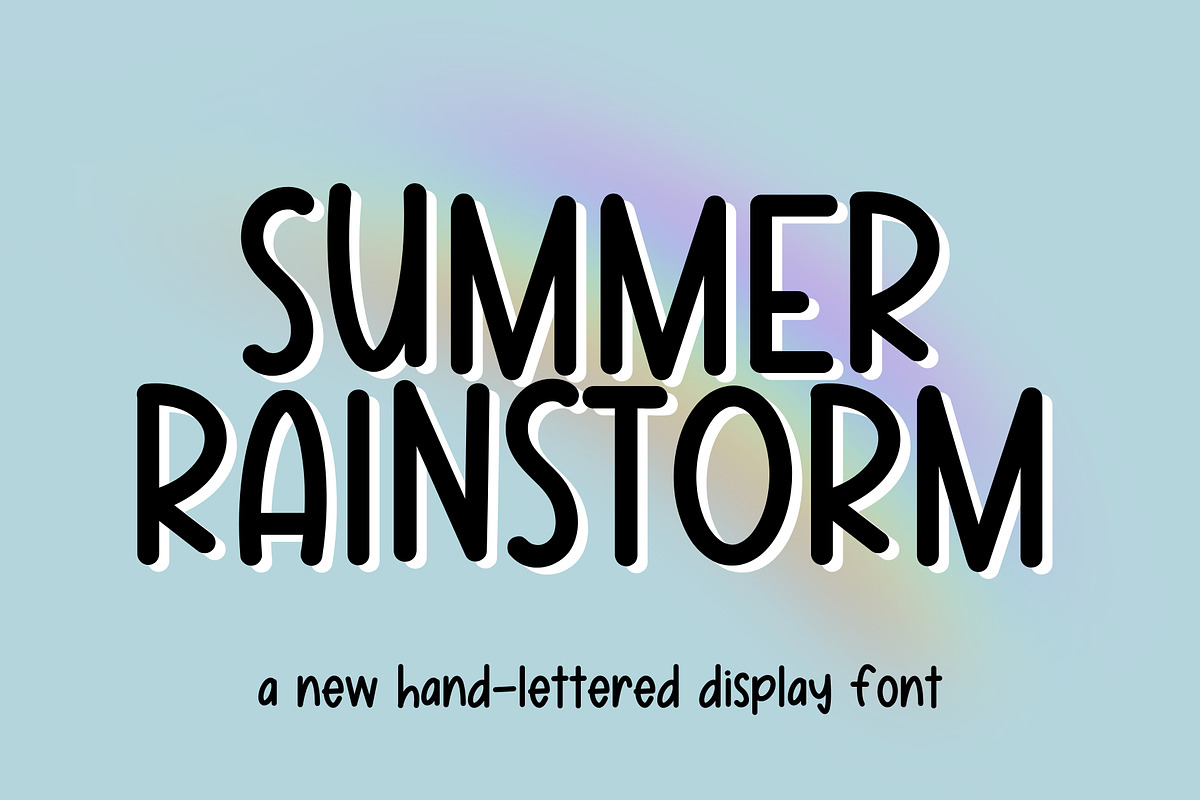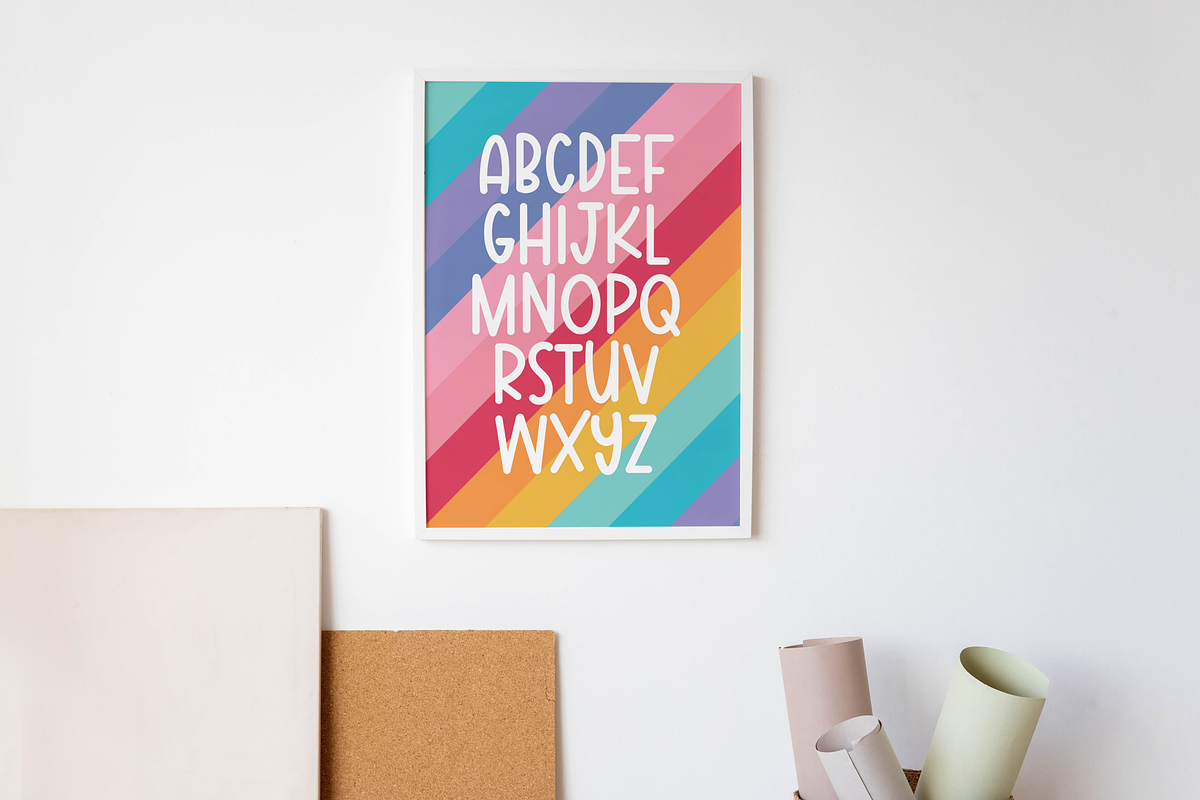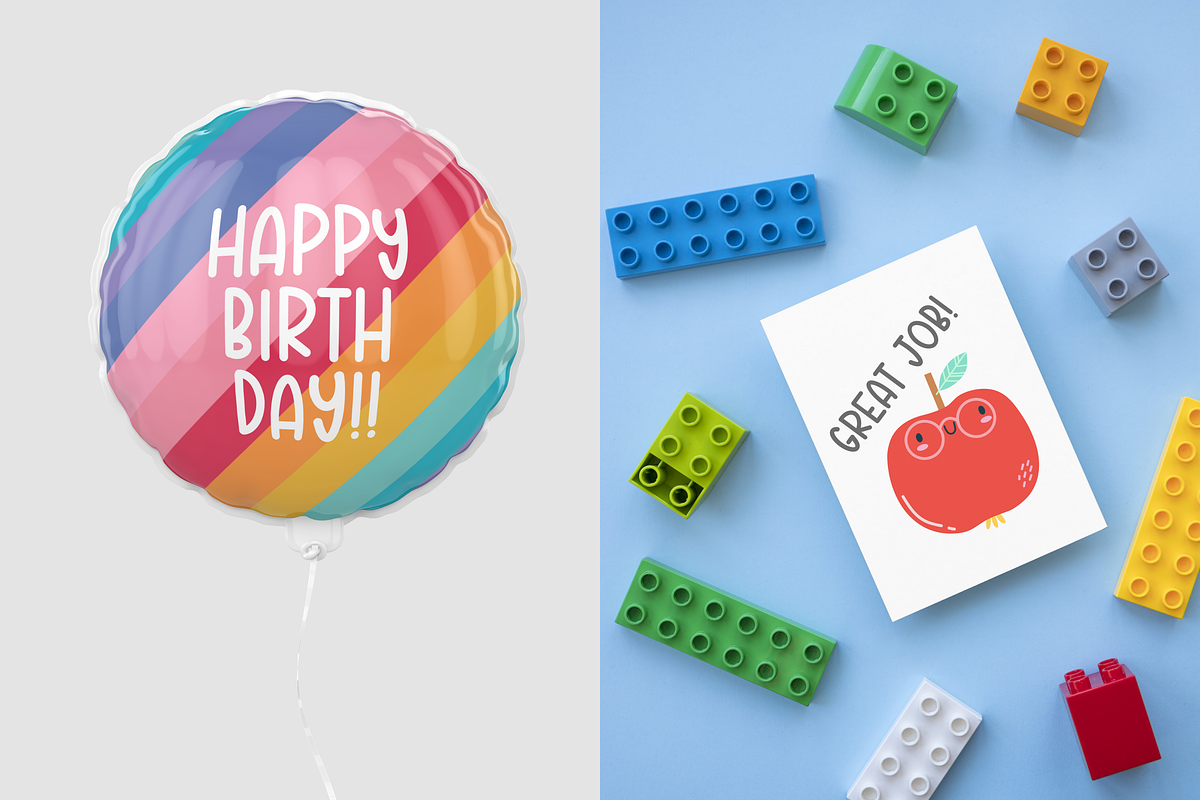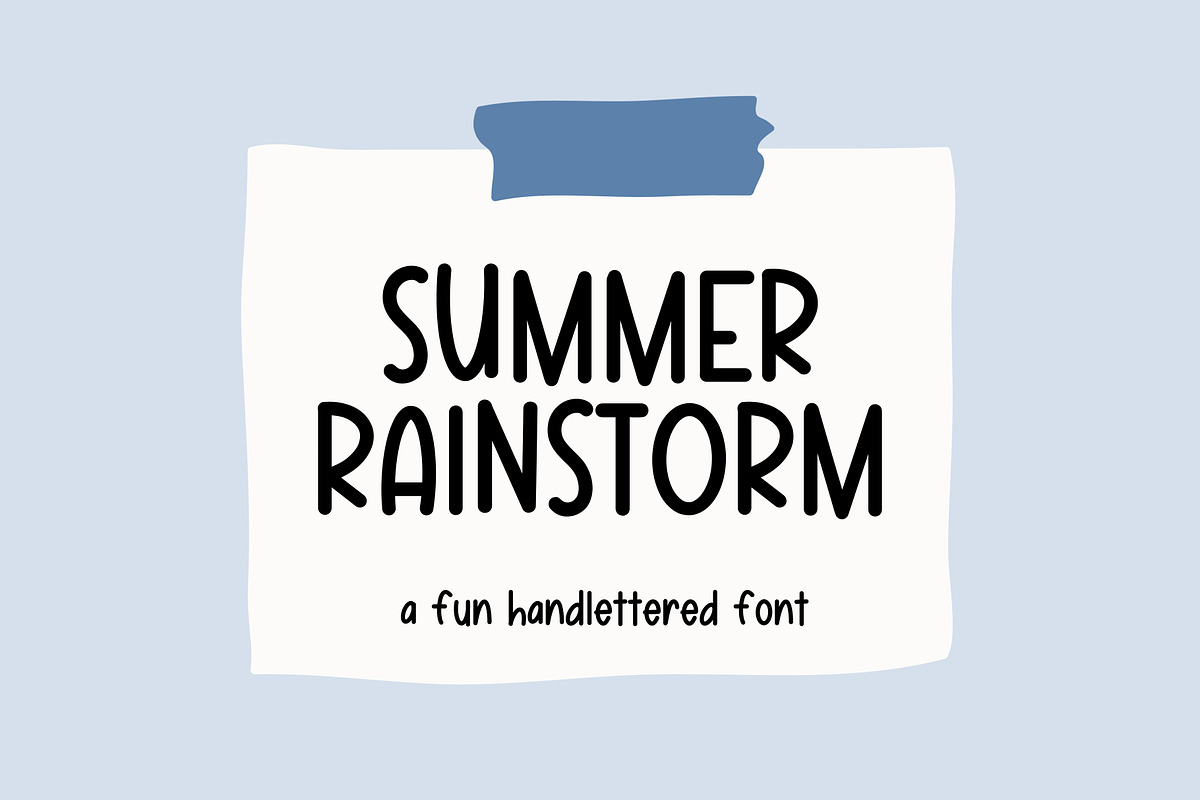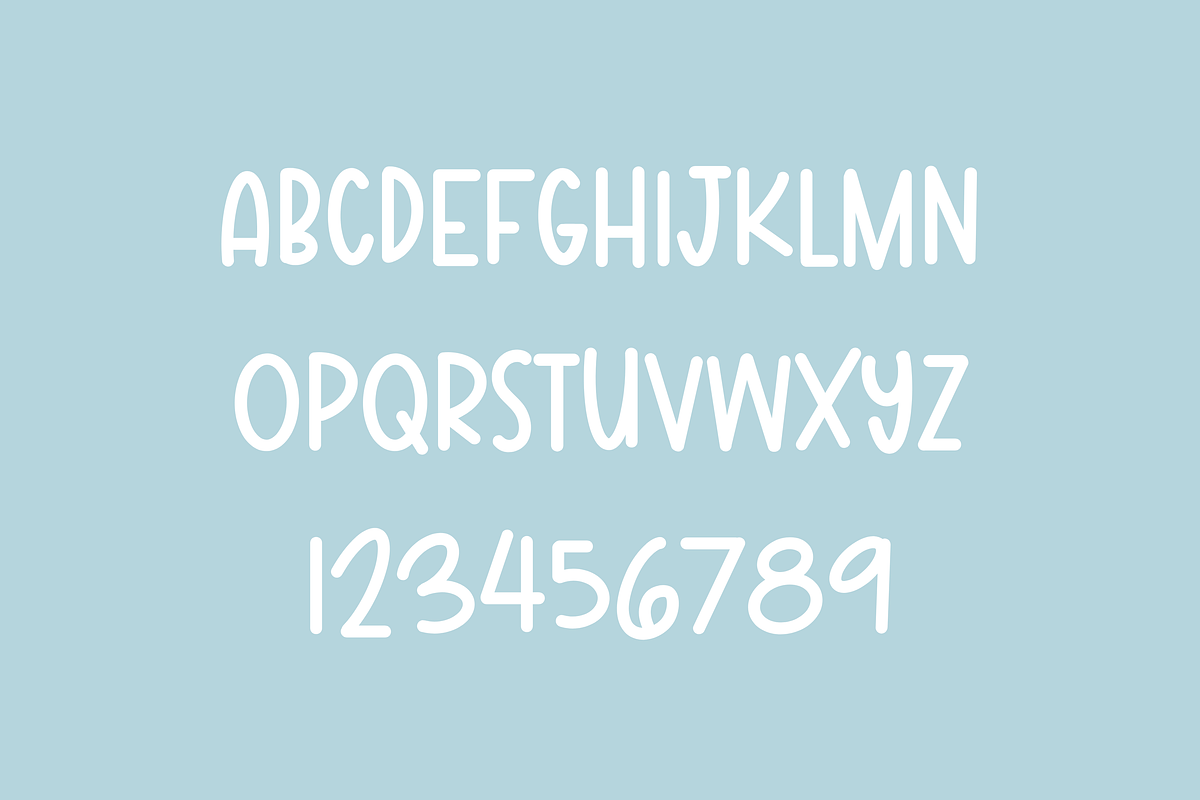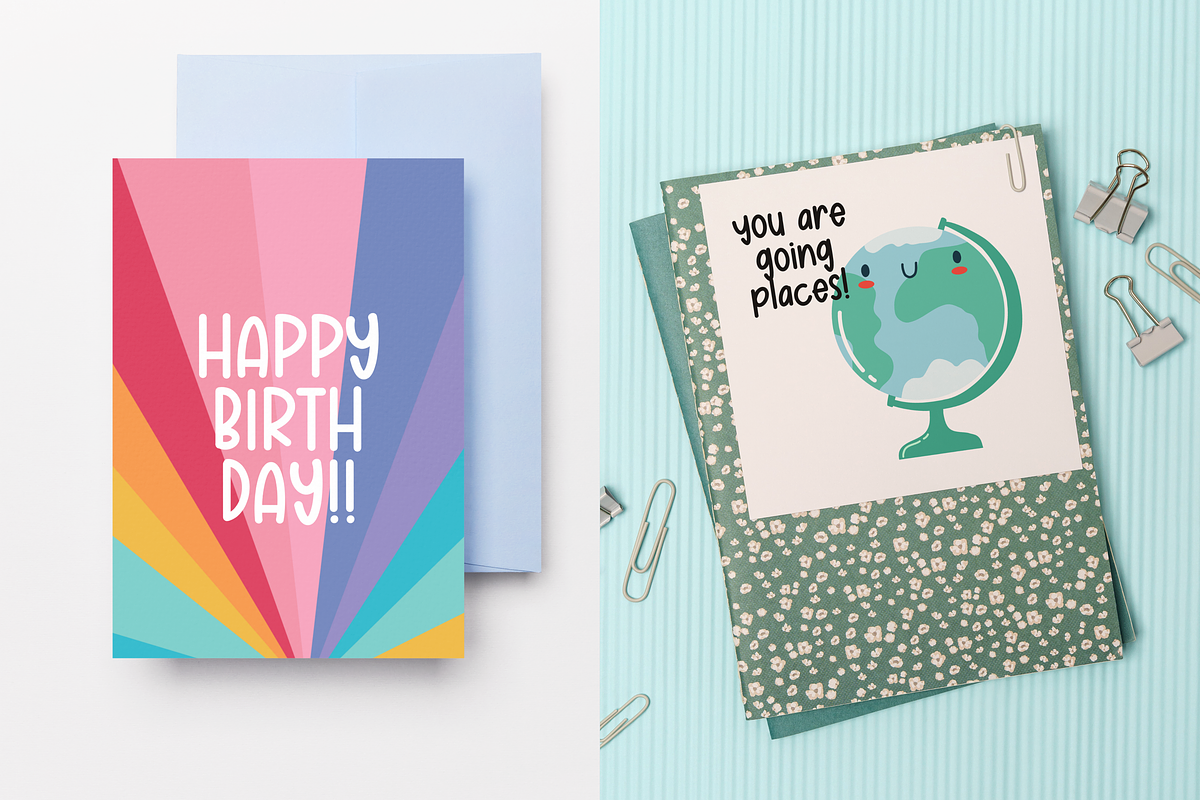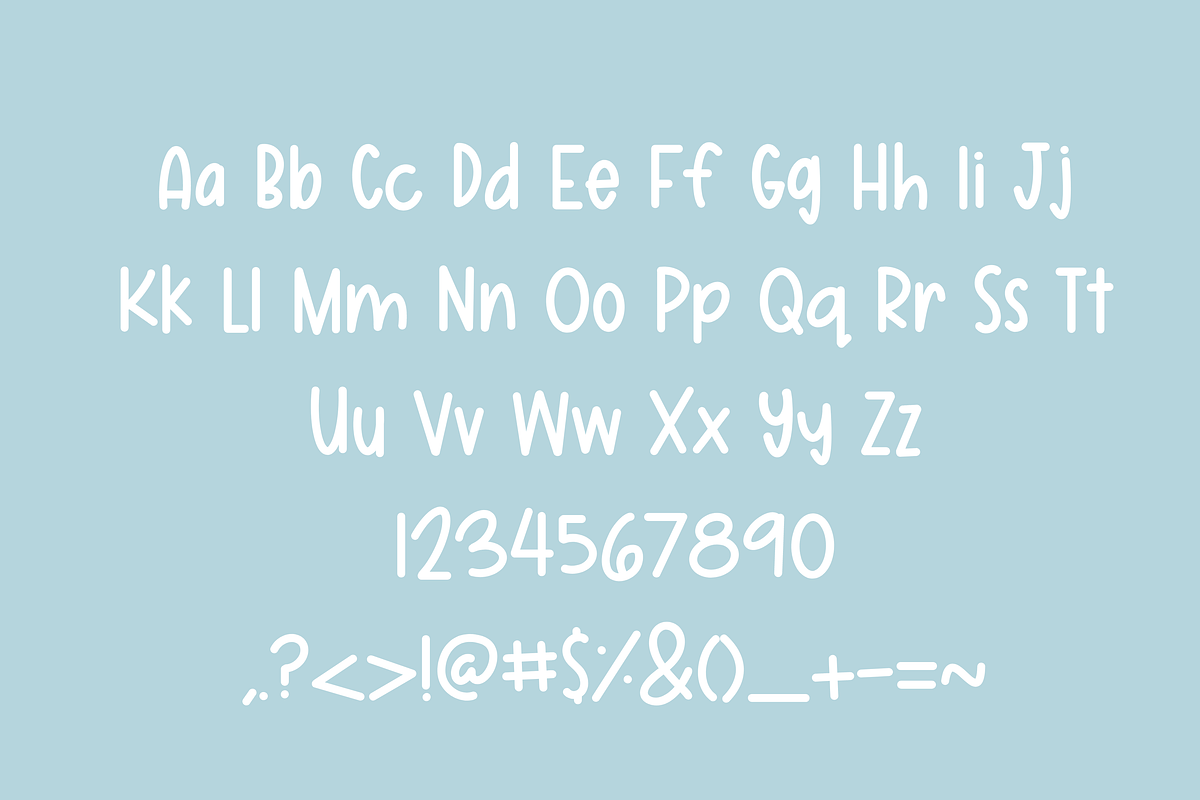
Summer Rainstorm
Summer Rainstorm is a new hand-lettered display font. Add this fun font to your next project. Great for logos, invitations, flyers, posters, social media posts, craft projects and more!
- Uppercase A-Z
- Lowercase a-z
- Numbers 0-9